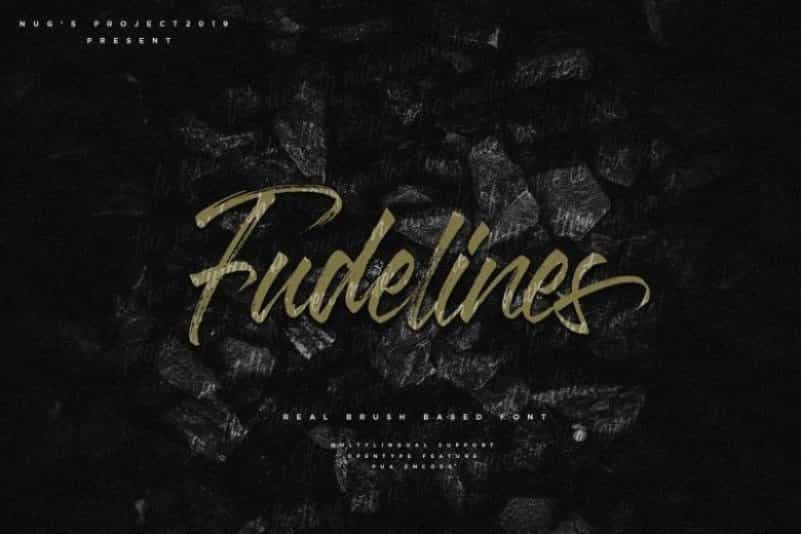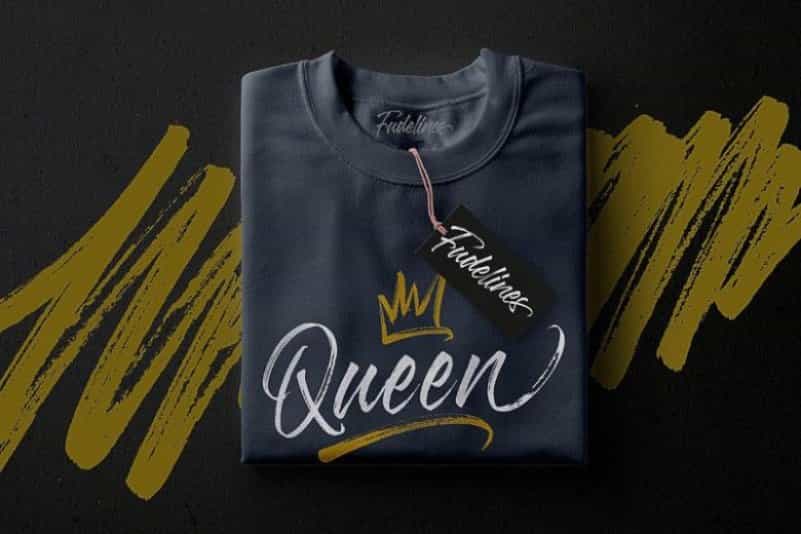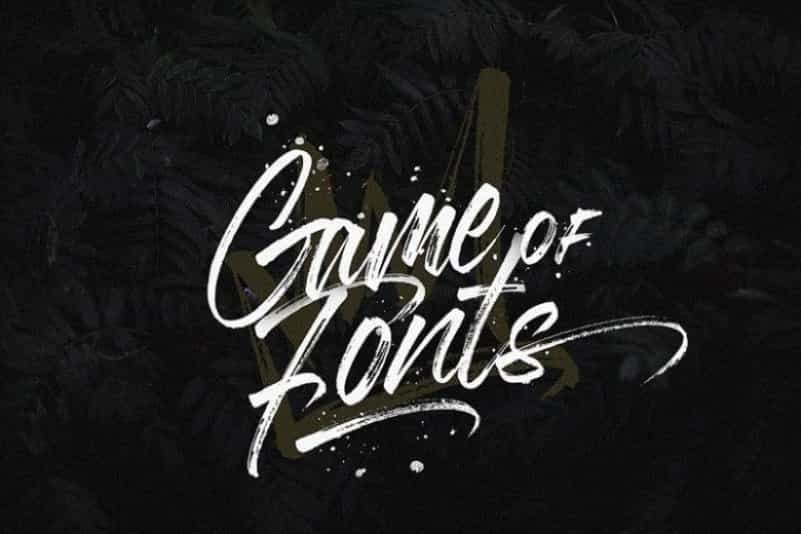
Fudelines Font is a Modern Brush Typeface. Fudelines is a brush font beautiful stroke letters consistent font inspired by classic alphabet letters. font is perfect for your design like printed pillow, t-shirt, video tumbnail, and others.